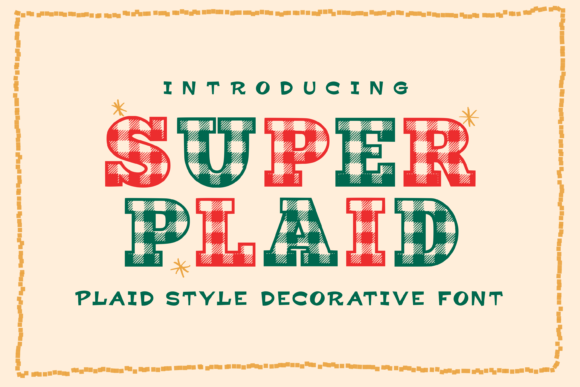
Sneak into the festive spirit and witness the captivating charm of Super Plaid, a decorative font family tailored to ignite the holiday magic! Created by the ingenious Rasa, this remarkable font exudes an aura of celebration and warmth, making it the perfect companion for spreading holiday cheer.
Indulge in the visual spectacle of Super Plaid, a font that transforms your designs into plaid-patterned masterpieces. Seamlessly blend the essence of tradition with a touch of contemporary flair, leaving your audience mesmerized. Its meticulous crafting ensures effortless readability, ensuring your holiday messages shine brightly and capture hearts.
Unleash your creativity and adorn your Christmas cards, gift tags, and festive posters with Super Plaid's enchanting presence. Elevate your social media posts to new heights, spreading holiday cheer with every captivating image. Let your imagination soar as you craft eye-catching display ads that command attention and leave a lasting impression.
With Super Plaid, the possibilities are endless. Whether you're a seasoned designer seeking to inject a touch of holiday magic into your projects or a novice seeking a font that sparks creativity, this font family is your perfect companion. Embrace the spirit of the season and witness how Super Plaid transforms your designs into heartwarming expressions of joy.
Seize the opportunity to make this holiday season truly extraordinary. Let Super Plaid be your creative ally, guiding you towards designs that enchant and inspire. Its plaid patterns will add a layer of depth and dimension to your projects, making them stand out from the crowd.
Don't let this festive opportunity pass you by. Embrace the charm of Super Plaid today and embark on a creative journey that will leave you feeling merry and bright. Spread holiday cheer with every design, capturing the hearts of your audience with the magic of plaid-patterned typography.